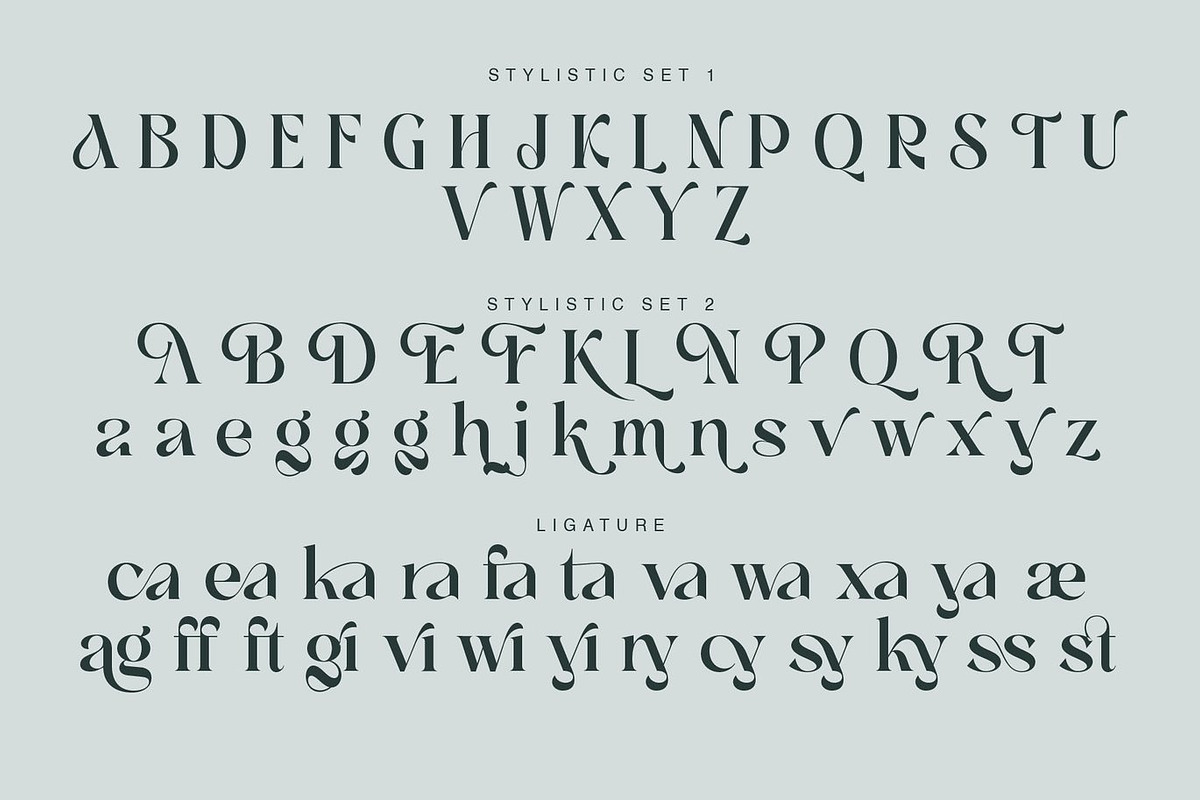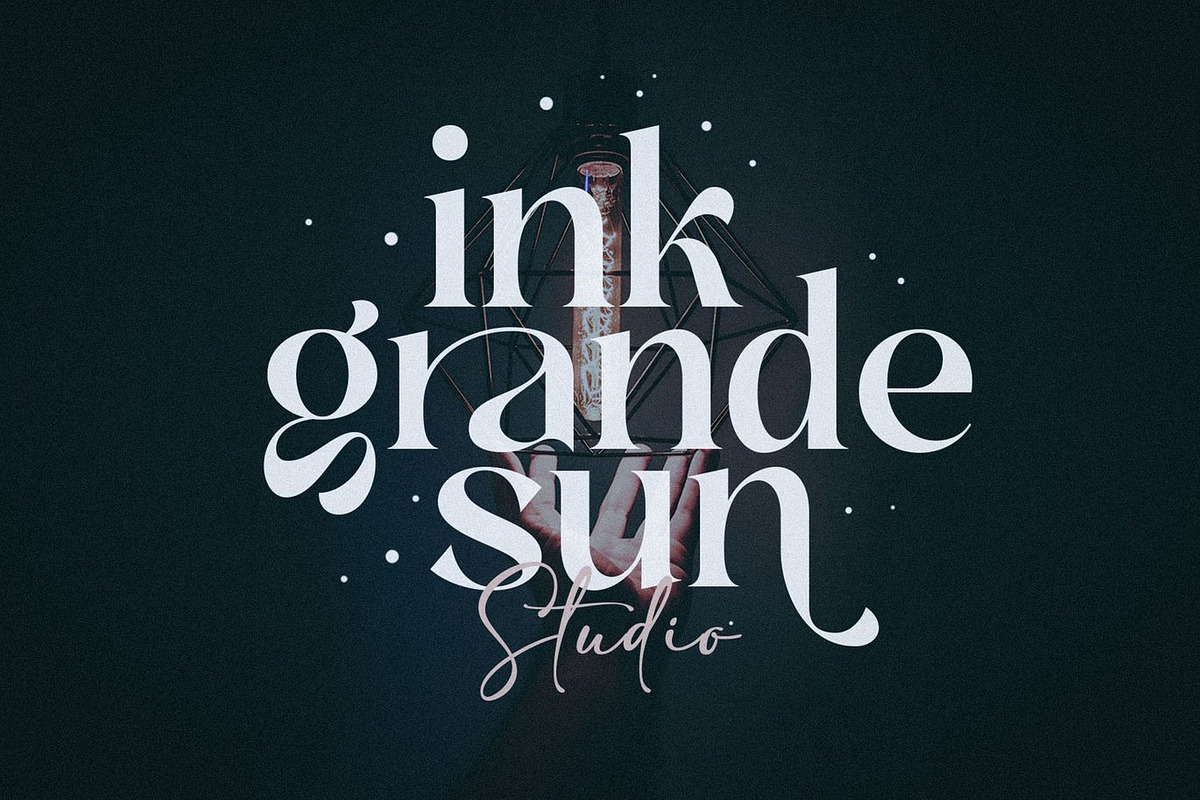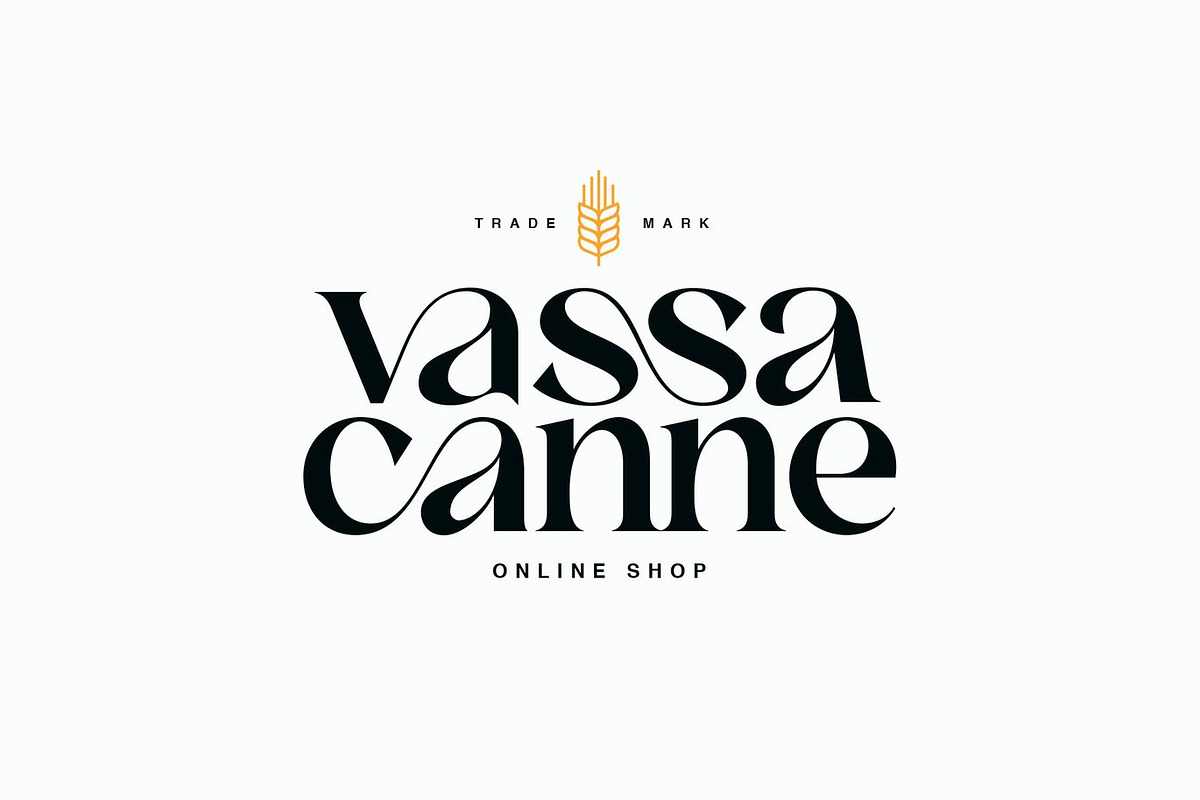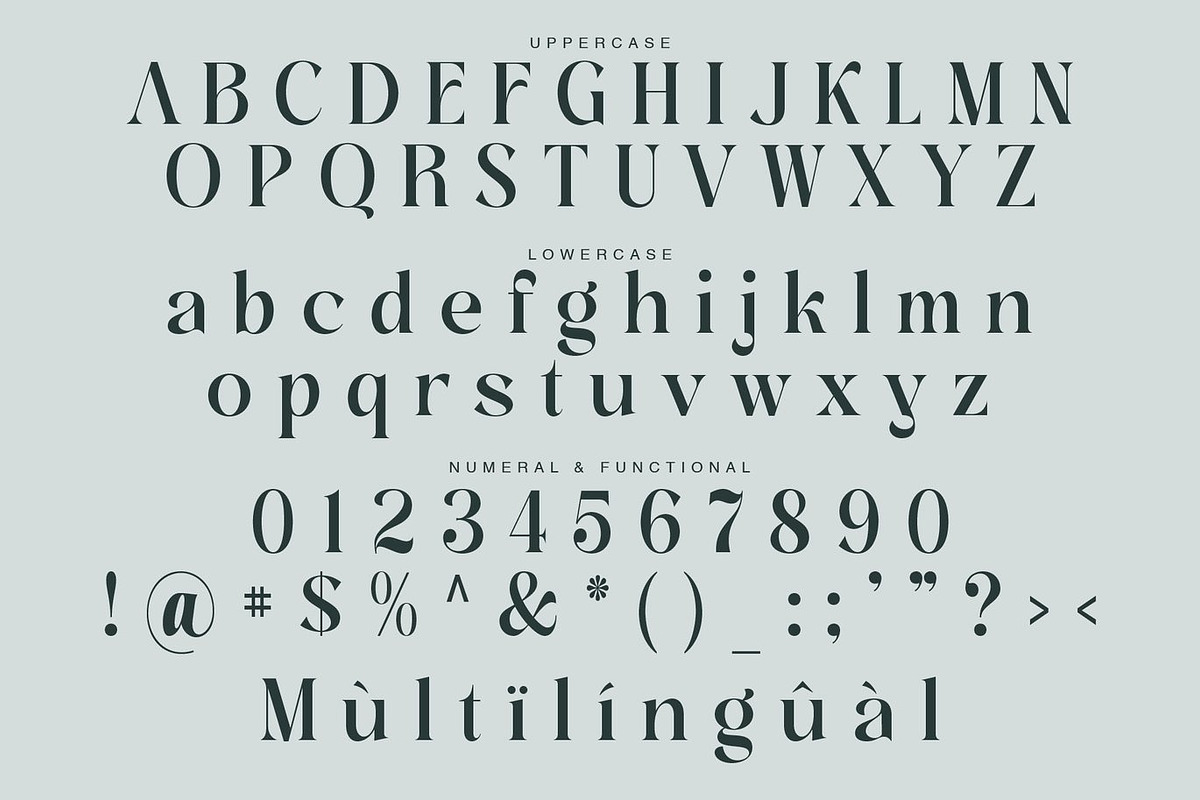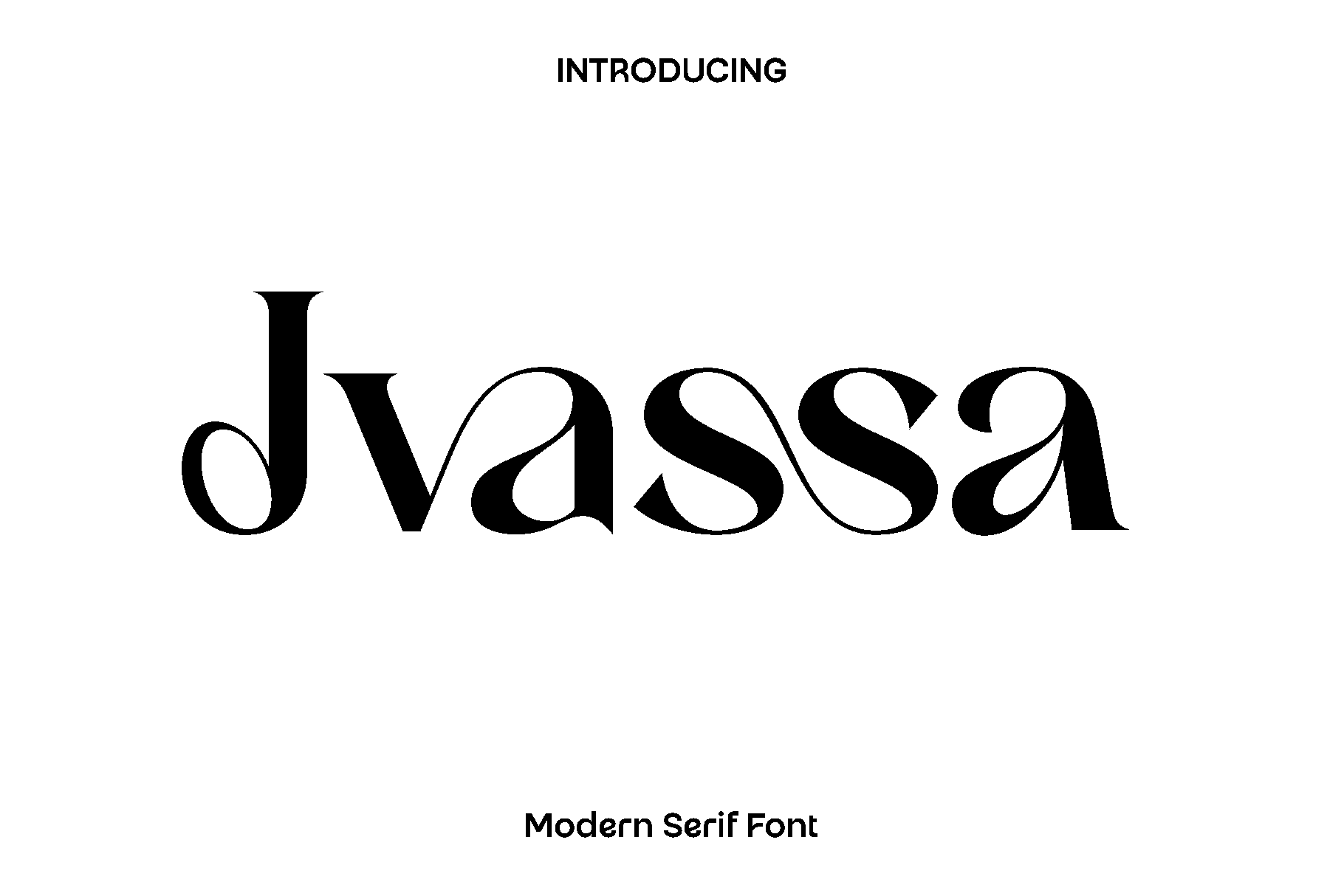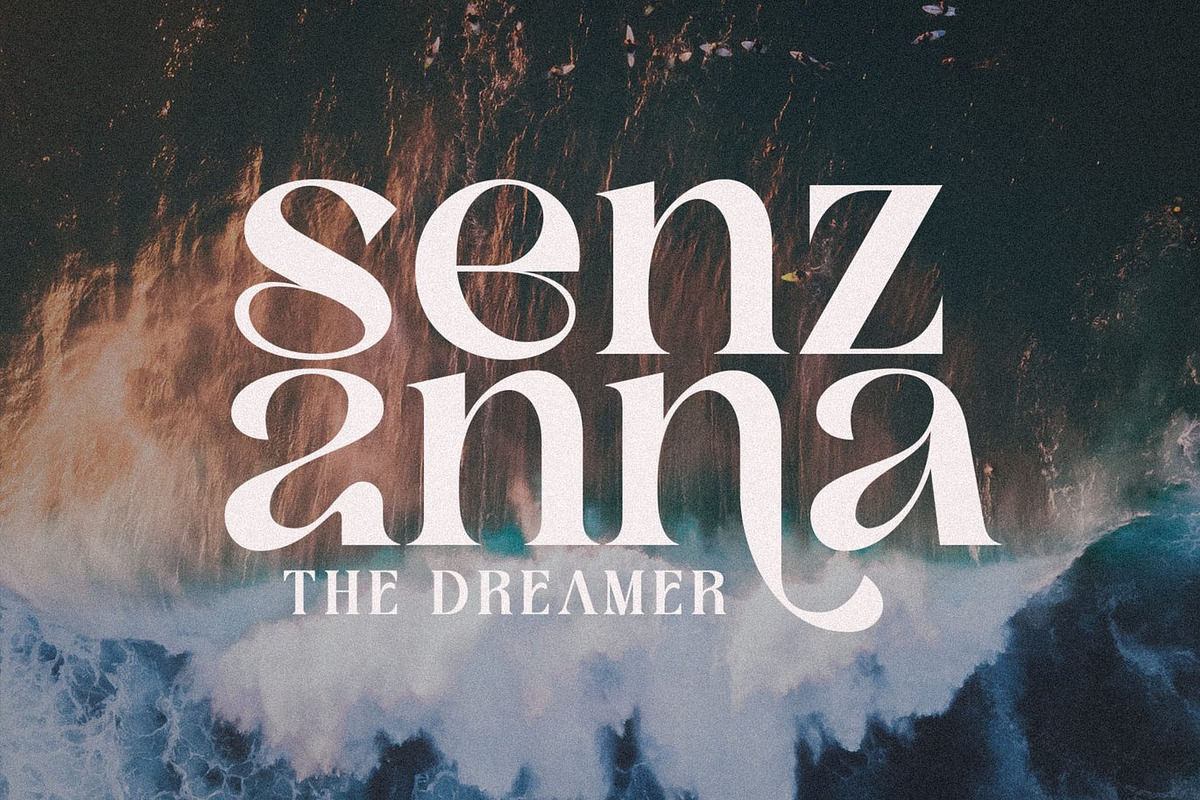
Jvassa Modern Serif Font
Jvassa is a serif display font created to express timeless beauty, femininity, and refined elegance. Inspired by classic typography and graceful decorative details, Jvassa features soft curves and balanced proportions that feel luxurious yet inviting. The carefully designed alternate characters add a romantic and artistic touch, allowing each word to feel expressive and beautifully styled.
This font truly shines in designs that require sophistication and charm. Jvassa is an excellent choice for logos and branding, wedding invitations, stationery, editorial layouts, product packaging, labels, and refined social media visuals. Its elegant personality makes it especially suitable for fashion brands, beauty products, lifestyle projects, and special events where a graceful visual tone is essential.
Jvassa feels delicate, classic, and confident at the same time. It brings warmth and elegance to both print and digital designs, helping your work stand out with a polished and memorable presence. Whether used in bold headlines or subtle typographic details, Jvassa elevates every composition with style and refinement.
Jvassa Serif Display Font Features:
• Elegant serif display characters
• Beautiful alternate stylistic characters
• Uppercase and lowercase
• Punctuation and numerals
• OpenType features
Jvassa is the perfect choice for designers who want to add a touch of classic elegance and feminine charm to their creative projects.